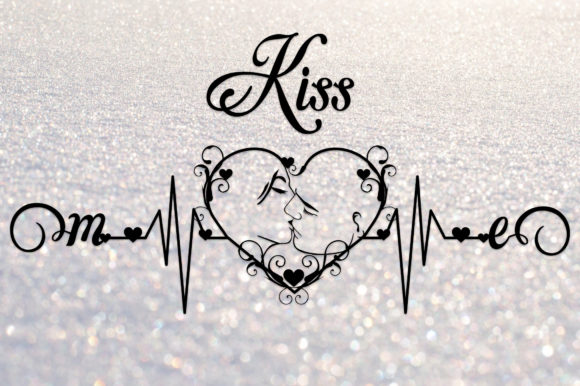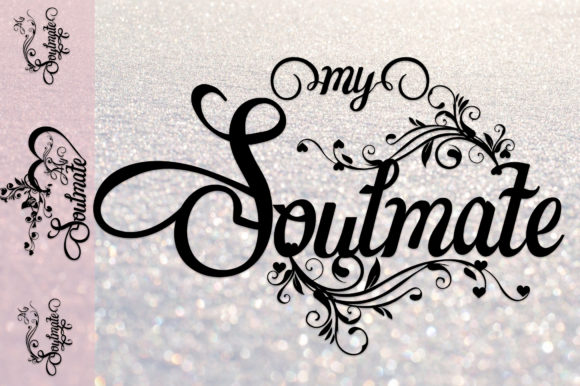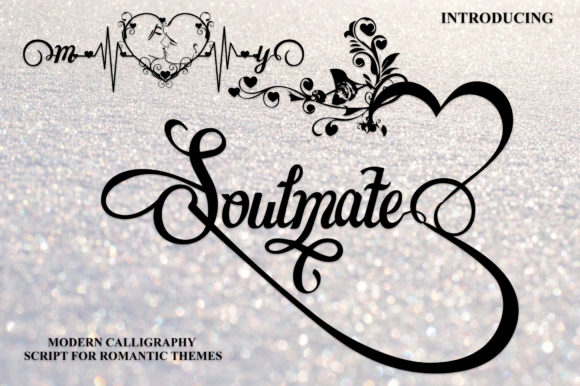
Introduction to My Soulmate Font
Have you ever been brainstorming a creative project, staring blankly at a blank canvas or page, and suddenly a spark of inspiration hits you? It’s that moment when everything falls into place, and you know exactly what you want to create. For designers, that spark can be a game-changer. One of the most valuable design resources is a high-quality font that brings your vision to life. That’s where My Soulmate Font comes in – a beautifully crafted, elegant handwritten font that’s perfect for adding a personal touch to your designs.
Whether you’re creating a wedding invitation, book cover, or greeting card, My Soulmate Font is the perfect choice. Its unique and creative style makes it stand out, and with its transparent background, you can easily combine it with other design elements to create a stunning visual effect. And the best part? It’s available for free download, making it an accessible design resource for designers of all levels.
Key Features of My Soulmate Font
- Unique, hand-drawn design perfect for creative projects and personal expression.
- Unique, whimsical style that adds a touch of personality to any design, perfect for branding, logos, and marketing materials.
Honest Review: My Soulmate Font
I recently had the chance to work with the My Soulmate Font, and I must say it’s been a delight to incorporate into my creative projects. The high quality of this font is truly noticeable, making it a valuable design resource for any professional or hobbyist.
One of the standout features of the My Soulmate Font is its compatibility with transparent backgrounds. This makes it perfect for creating visually appealing designs with a lot of depth and dimension. The font is also incredibly versatile, with a wide range of styles and weights to choose from.
- High quality and crisp typography ✨
- Wide range of styles and weights available ✨
- Compatible with transparent backgrounds ✨
While the My Soulmate Font is an excellent addition to any design arsenal, there are a few limitations to be aware of.
- Limited character set ⚠️
- No extended character support ⚠️
Overall, I’m thoroughly impressed with the My Soulmate Font. It’s a fantastic design resource that’s perfect for personal projects or small-scale commercial use. With its high quality typography and versatile range of styles, it’s definitely worth checking out.
Tips for Getting the Most Out of My Soulmate Font
For the best results, use My Soulmate Font in conjunction with other high-quality design resources. Experiment with different font sizes, colors, and combinations to find the perfect look for your project.
My Soulmate Font is perfect for any creative project, including wedding invitations, social media graphics, and business presentations. Its transparent background and high-quality design make it a versatile font that can be used in a variety of contexts.
Alternatives to My Soulmate Font
Lato Font is a high-quality, sans-serif typeface that is ideal for creative projects that require a clean and modern design. It is available for free download and can be used with a transparent background, making it a versatile design resource.
Lato Font is similar to My Soulmate Font in terms of its clean and elegant design, but it has a more geometric feel and is better suited for body text. It is a great alternative for designers who want a high-quality font without the need for a bold, eye-catching font.